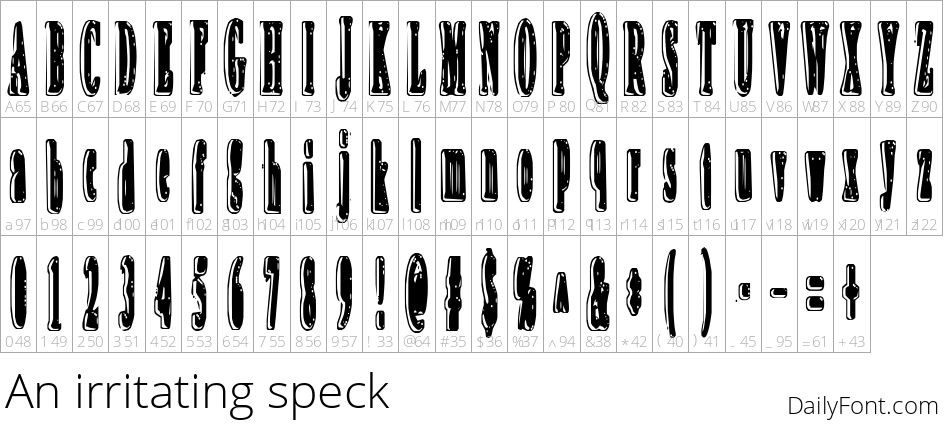
An irritating speck
Distressed, ink-scratched caps with a grungy horror texture
An Irritating Speck is a heavily distressed display font built from jagged, ink-scratched strokes - every letter looks like it was carved or scraped rather than drawn cleanly, with rough edges and uneven weight throughout. The narrow, tightly-spaced letterforms add to the tension, giving the whole set a claustrophobic, unsettling feel that suits horror and grunge work well.
Both uppercase and lowercase are included, along with a full distressed numeral set, so it can carry more than just a short title if needed - though like most grunge fonts, it reads best large and used sparingly.
Good uses for An Irritating Speck:
- Horror movie posters and title cards
- Metal or punk band logos and merch
- Halloween signage and creepy invitations
- Grunge-styled packaging or zine layouts